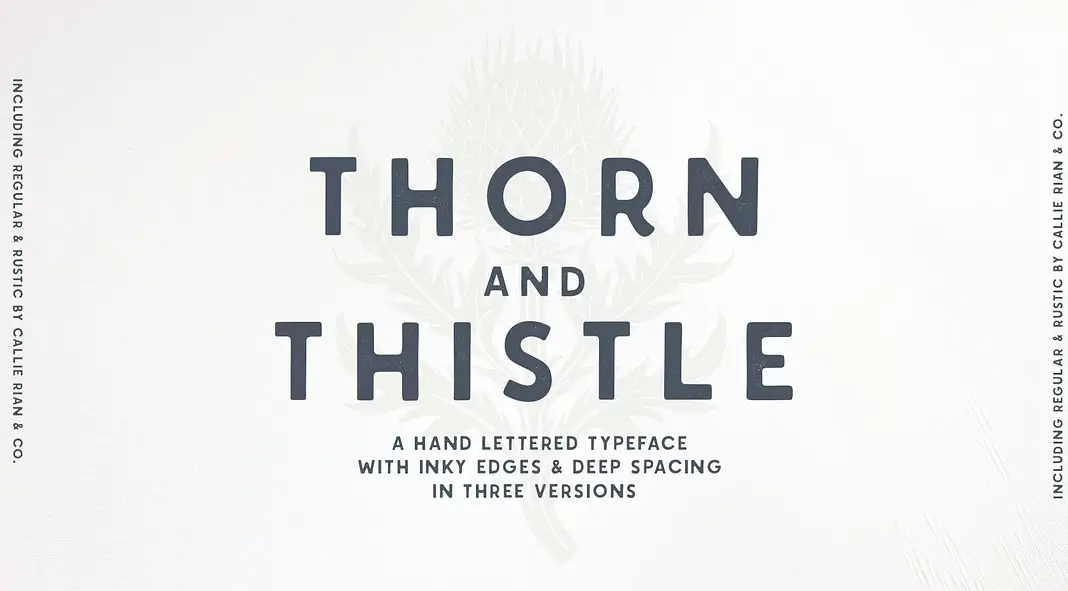
The hand-drawn sans serif typeface you need in your life.
The right typeface can elevate your design, conveying the perfect mood and message to your audience. Enter Thorn & Thistle, a hand-drawn sans serif typeface by Callie Rian & Co., which brings a unique blend of trendiness and classic beauty to your design projects. This blog post delves into the intricacies of this versatile font family and explores its various applications and benefits.
The Alluring Appeal of Thorn & Thistle
Thorn & Thistle stands out in the realm of typography due to its distinctive hand-drawn quality. The typeface features subtlety-inked corners and comes in three versatile versions: Regular, Rustic, and Shadowed. This variety makes it an ideal choice for a range of design needs, from magazine headlines to logo creation, packaging, quotes, and more.
Regular Version
The Regular Version of Thorn & Thistle is the most versatile of the three. With its clean lines and subtle inked corners, it maintains a balance between hand-crafted charm and professional polish. This version is compatible with cutting machines like Circuit or Silhouette, making it a fantastic option for crafting projects and DIY enthusiasts.
Rustic Version
For those seeking a more textured, organic look, the Rustic Version of Thorn & Thistle is the perfect choice. This version has a rugged, hand-sketched quality that adds depth and character to any design. However, due to its intricate details, it is not recommended for use with cutting machines, as the edges might be too irregular for precise cutting.
Shadowed Version
The Shadowed Version brings an additional layer of depth and dimension to your typography. The hand-drawn shadows create a striking visual effect, making your text pop off the page. This version is particularly effective for headlines, logos, and other prominent text elements that require a bold statement.
Crafting with Thorn & Thistle: Tips and Tricks
- Western European Language Support: This font family includes support for Western European languages, making it a versatile choice for multilingual projects.
Applications and Inspiration
Thorn & Thistle is designed to be a go-to typeface for a variety of design projects. Here are some inspiring ways to use this hand-drawn sans serif:
- Magazines: The clean yet unique style of the Regular version is perfect for magazine headlines and feature stories. It adds a touch of elegance without overpowering the content.
- Logos: Each version of Thorn & Thistle can be used to create distinctive logos. The Rustic version adds a handcrafted feel, while the Shadowed version provides depth and emphasis.
- Packaging: Whether you’re designing labels for artisanal products or stylish packaging for modern goods, Thorn & Thistle’s versatility ensures your text stands out.
- Quotes: The hand-drawn quality of Thorn & Thistle makes it an excellent choice for designing quote graphics for social media or print.
- DIY Projects: Compatibility with cutting machines (Regular version), you can use Thorn & Thistle for a variety of crafting projects, from vinyl decals to custom apparel.
Finding a font that combines trendiness with classic beauty can be a challenge. Thorn & Thistle by Callie Rian & Co. meets this need with its hand-drawn charm and versatile applications. Whether you’re a designer working on high-end magazine layouts or a crafter looking for the perfect typeface for your next project, Thorn & Thistle offers a unique and stylish solution. Embrace the subtle irregularities and hand-crafted essence of this typeface, and watch your designs come to life with an unparalleled flair.